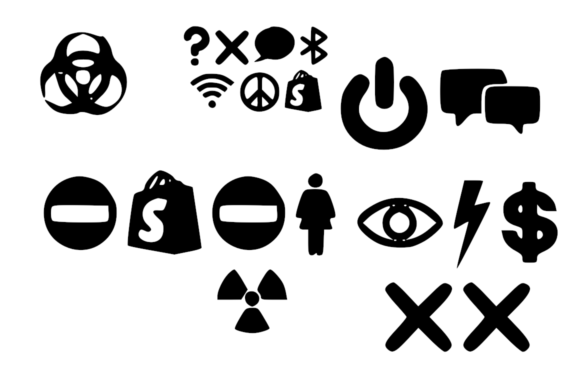
Introduction to New Web Dings Font
New Web Dings is a friendly and useful collection of web and digital media icons perfect for any web design.
The only limit is your imagination .
Key Features of New Web Dings Font
Why Choose New Web Dings Font?
New Web Dings Font offers exceptional quality and versatility, making it a valuable addition to your design toolkit. Whether you’re creating for personal projects or commercial use, New Web Dings Font delivers professional results.